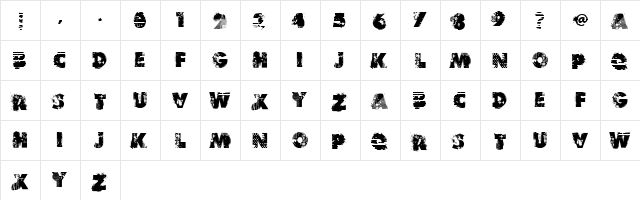
VTKS REVERSO Regular
| Foundry | douglas vitkauskas |
| Designer | douglas vitkauskas |
Design Context for VTKS REVERSO Typeface
VTKS REVERSO is a composed and adaptable typeface that performs quietly and consistently across a wide range of design contexts.